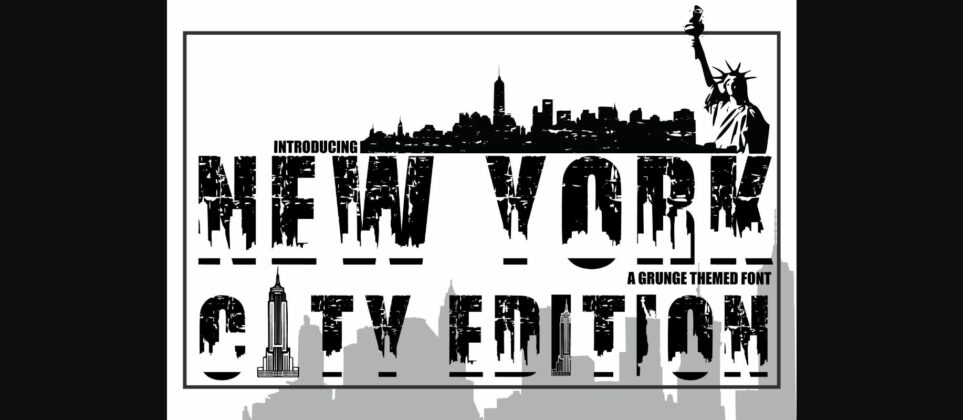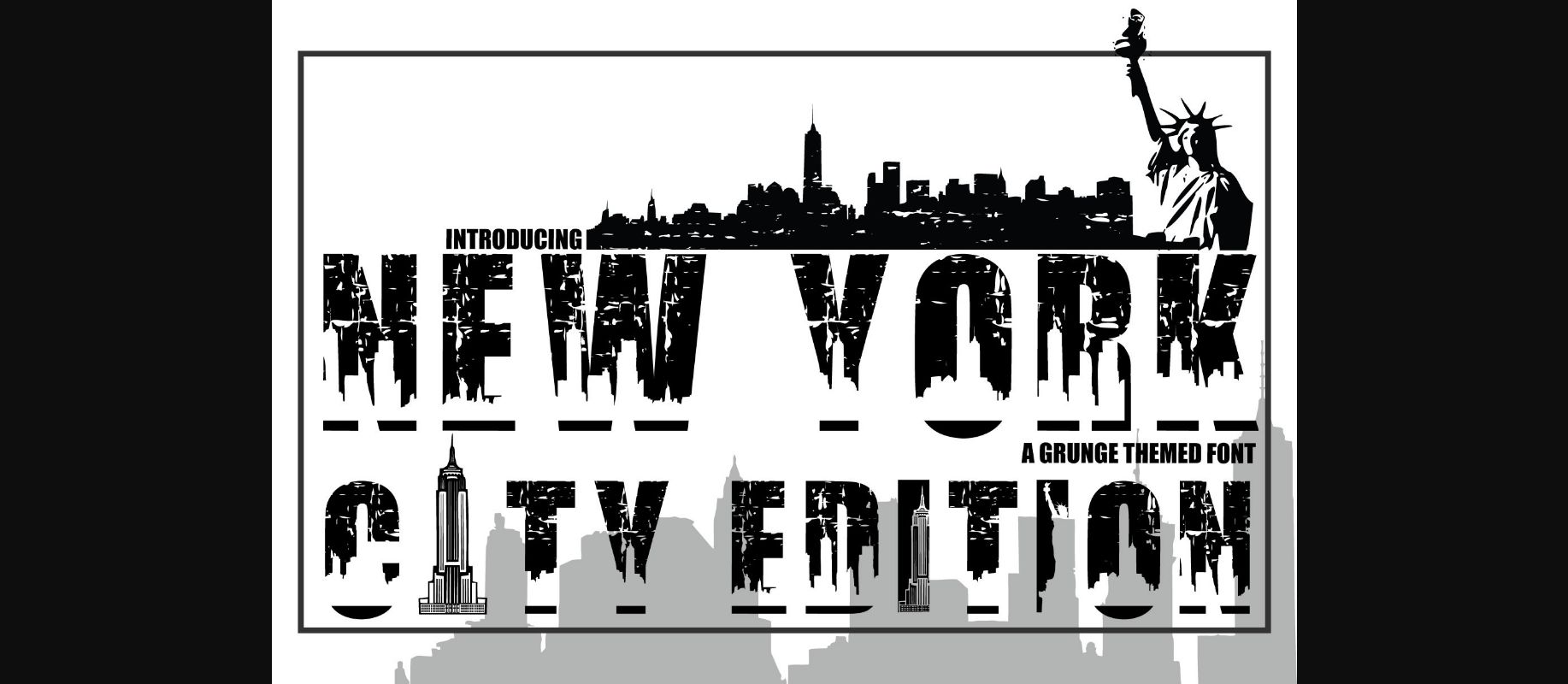
About New York City Edition Font
New York City Edition is a bold and incredibly cool decorative font. It can be used for various design ideas, particularly those related to the glamorous life in the Big Apple. Have fun with this beautiful font and explore its endless variations.